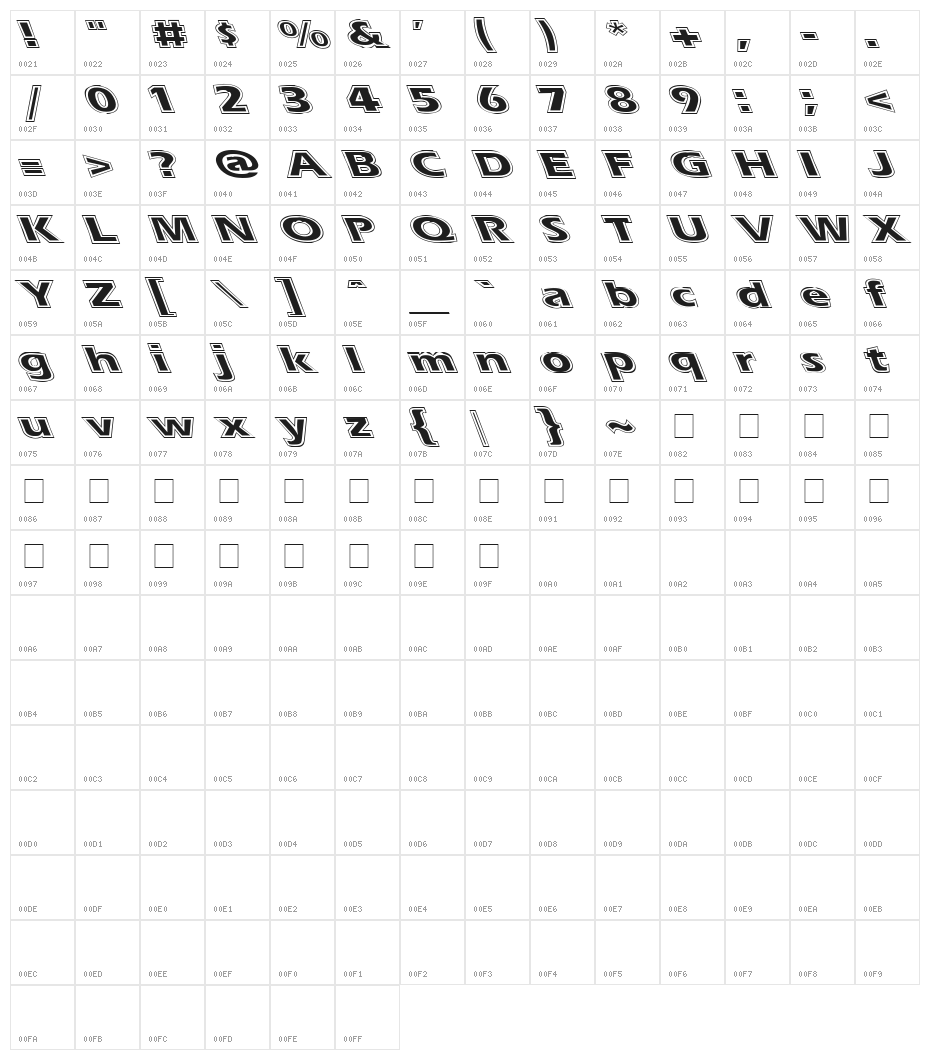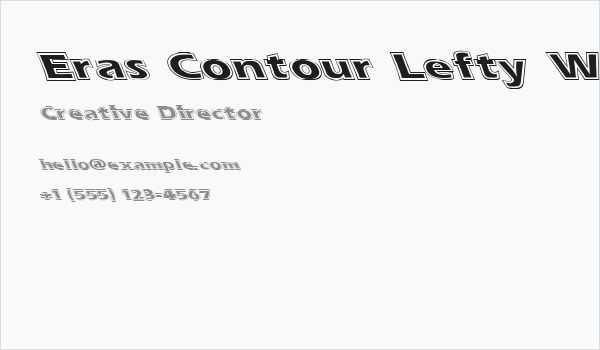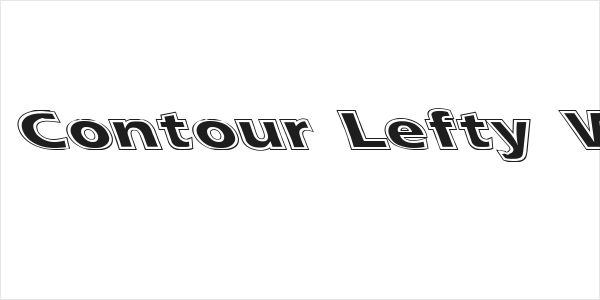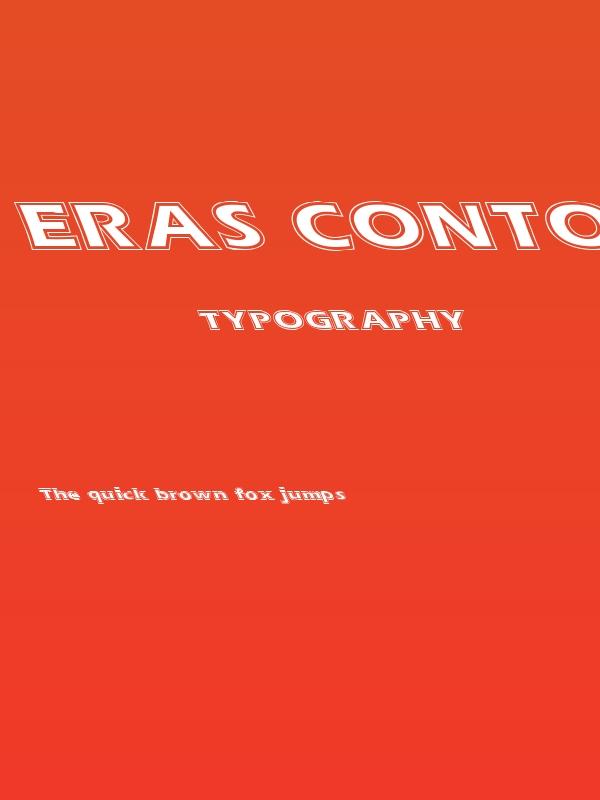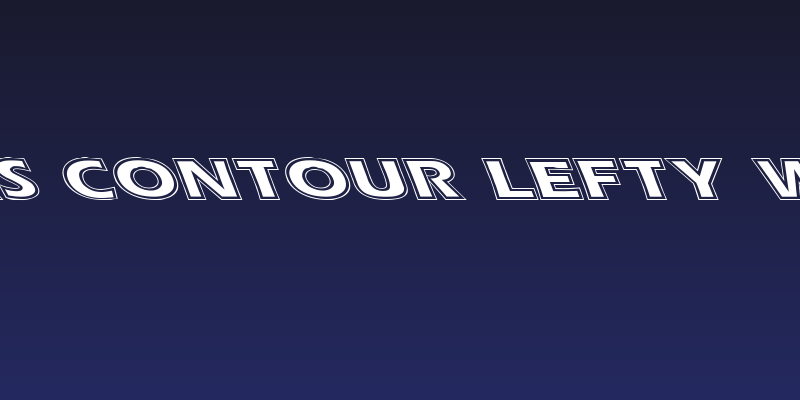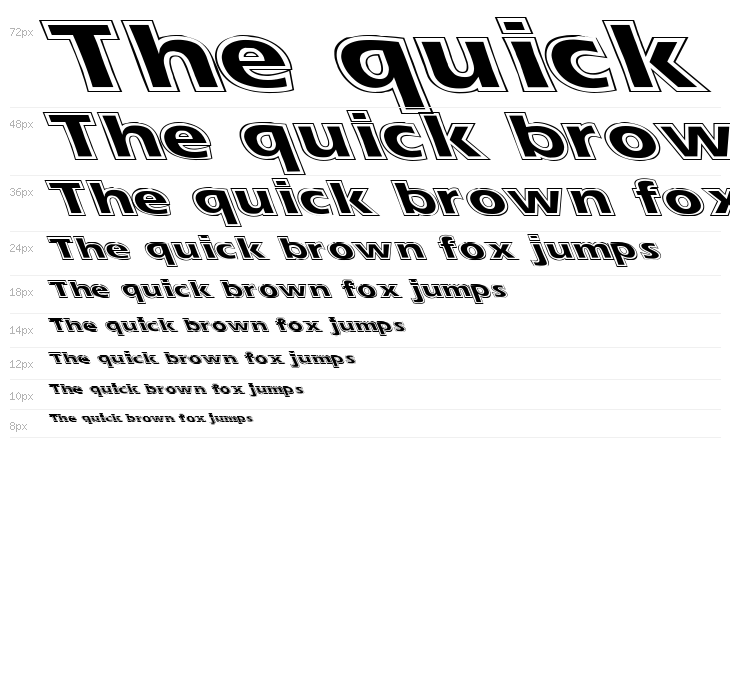
Eras Contour Lefty Wide Font
Eras Contour Lefty Wide Description
This font features a bold and dynamic style with a distinct contour effect that gives each character a three-dimensional appearance. The letters are wide and have a leftward slant, adding a sense of motion and energy. The uppercase and lowercase letters maintain a consistent design, with strong, clean lines and a modern aesthetic. The numerals and special characters are equally bold, ensuring readability and impact. This font is ideal for making a statement and capturing attention with its unique and striking design.
| Proposed Projects | Ideal for headlines, posters, branding, and any project requiring a bold, eye-catching typeface. |